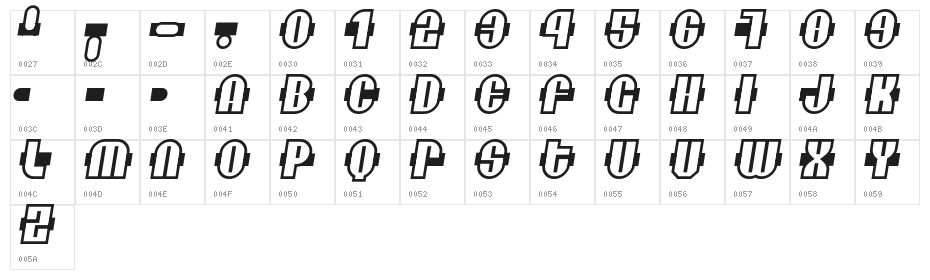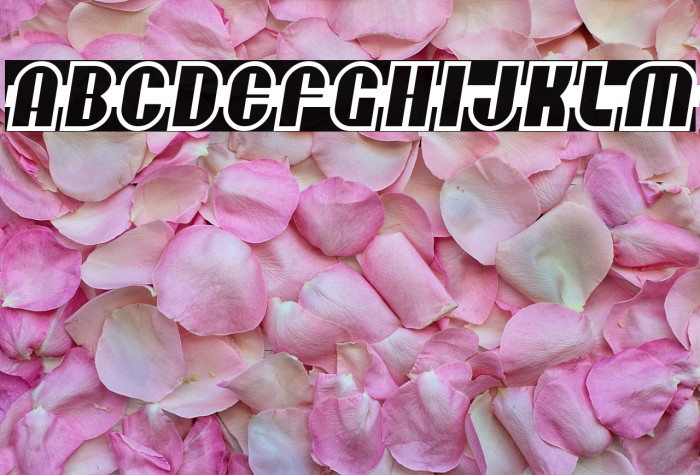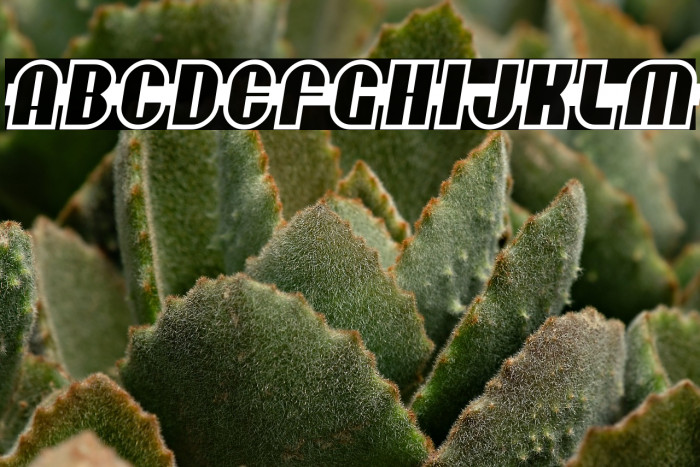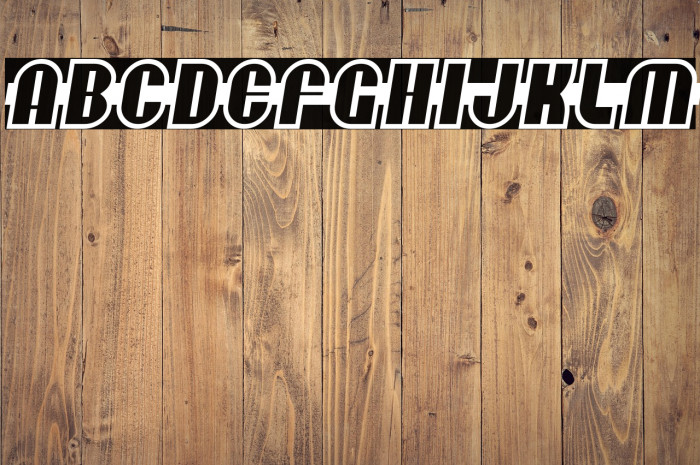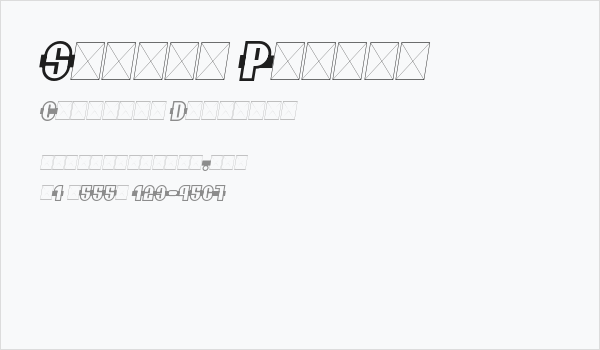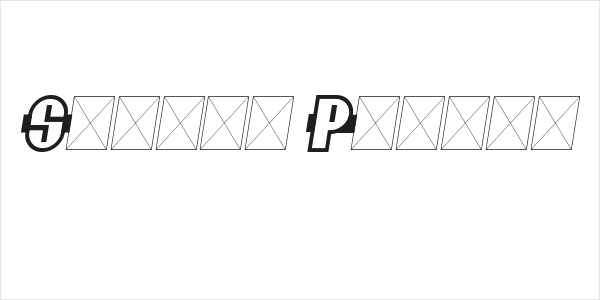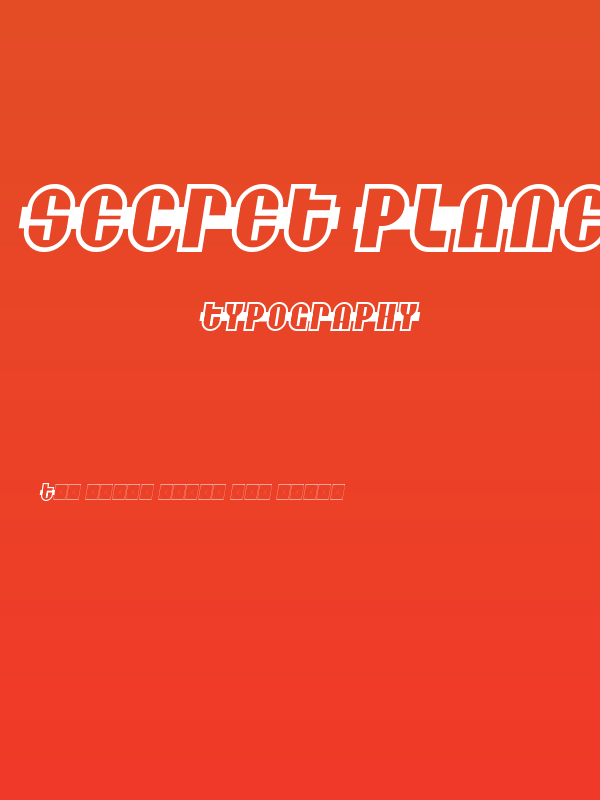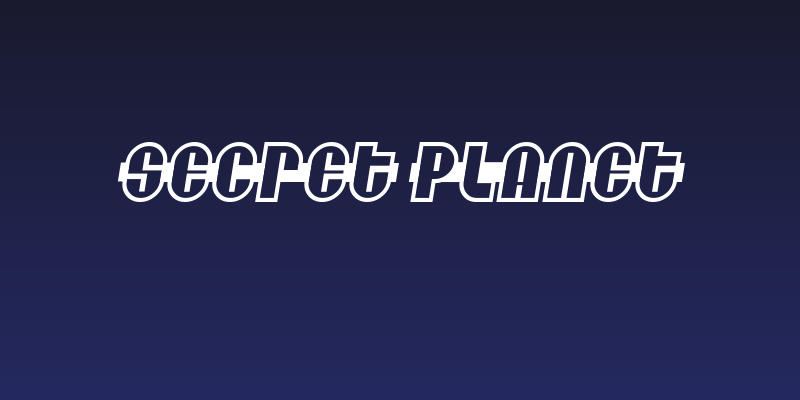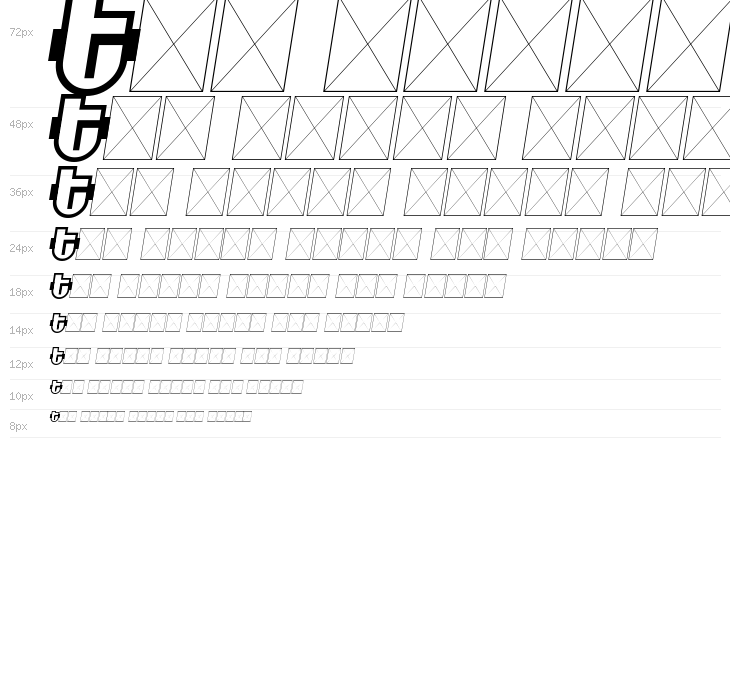
Secret Planet Font
Secret Planet Description
This font features a bold and dynamic style with a distinct outline that gives it a three-dimensional appearance. The characters are uppercase and have a futuristic, sporty look, characterized by sharp angles and a strong presence. The design includes a unique inline detail that adds depth and interest, making it stand out in any design. The numerals and special characters follow the same bold and outlined style, ensuring consistency across all elements. This font is ideal for projects that require a modern and impactful aesthetic.